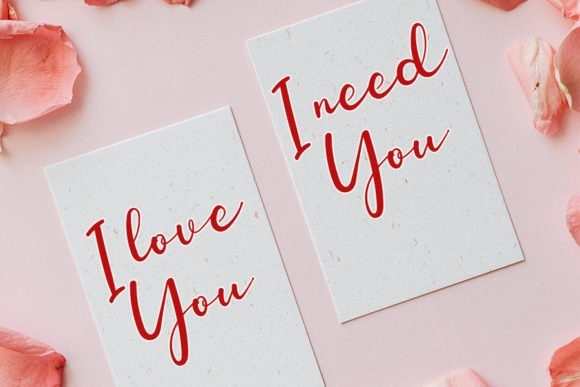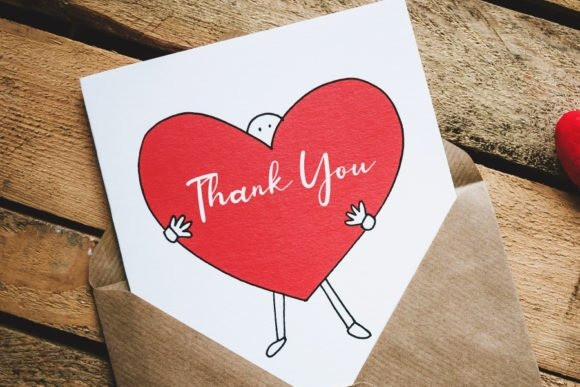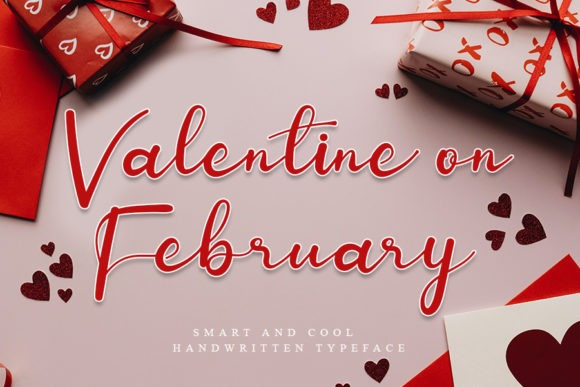
Roshintta Handwritten Font
Roshintta Handwritten Font, is an exquisite handwritten font, masterfully designed to become a true favorite. It maintains its classy calligraphic influences while feeling contemporary and fresh. Fall in love with it and bring your projects to the highest levels!